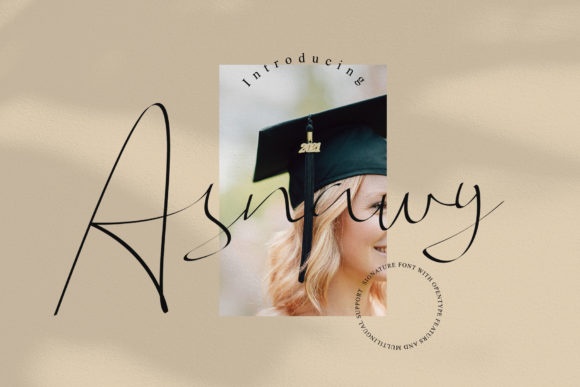
Enter the realm of elegance and sophistication with Asnawy, the captivating script font that will transform your digital designs into masterpieces. Created by the talented die.miftah21, Asnawy boasts a captivating fusion of thin, delicate letterforms that evoke a sense of luxury and grace. Prepare to be mesmerized as Asnawy weaves its magic into your creative endeavors.
Journey through the world of Asnawy, where each letter dances across the page like a delicate brushstroke, leaving a trail of beauty and elegance in its wake. Experience the allure of this font, meticulously crafted to elevate your ebook website to new heights of sophistication. Asnawy's inherent charm will captivate your readers, drawing them into the captivating world of your written creations.
Indulge in the ease and convenience of Asnawy's PUA encoding, allowing you to effortlessly access the full range of glyphs and swashes. Unleash your creativity and let Asnawy guide you towards stunning designs that leave a lasting impression. The possibilities are endless as you witness Asnawy transforming your words into works of art.
Your ebook website deserves the best, and Asnawy delivers just that. With its ability to elevate your content and create a truly immersive reading experience, Asnawy is the perfect font for authors seeking to captivate their audience. Don't let mediocrity hold you back; embrace the exceptional with Asnawy and watch your ebook website flourish.